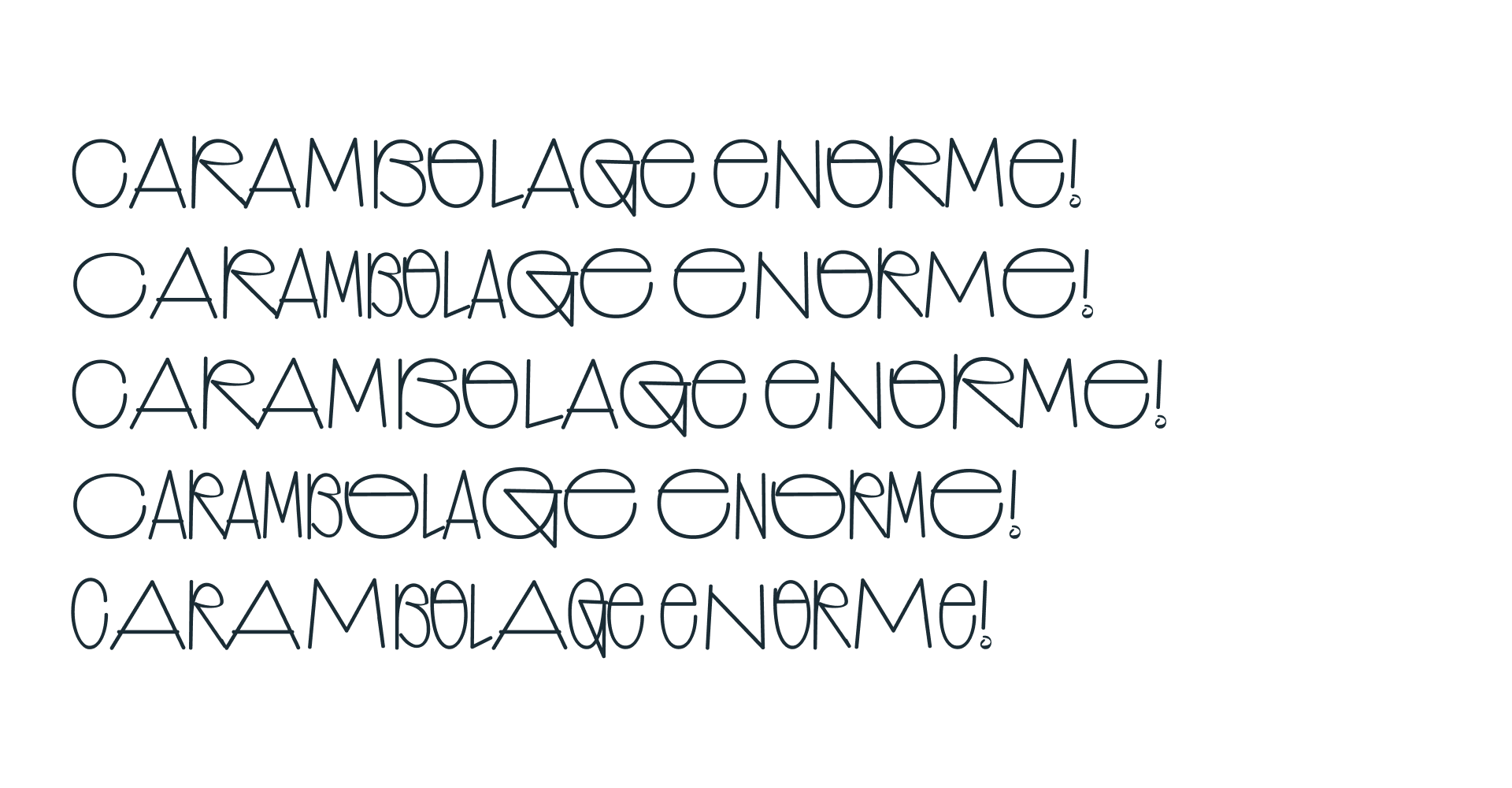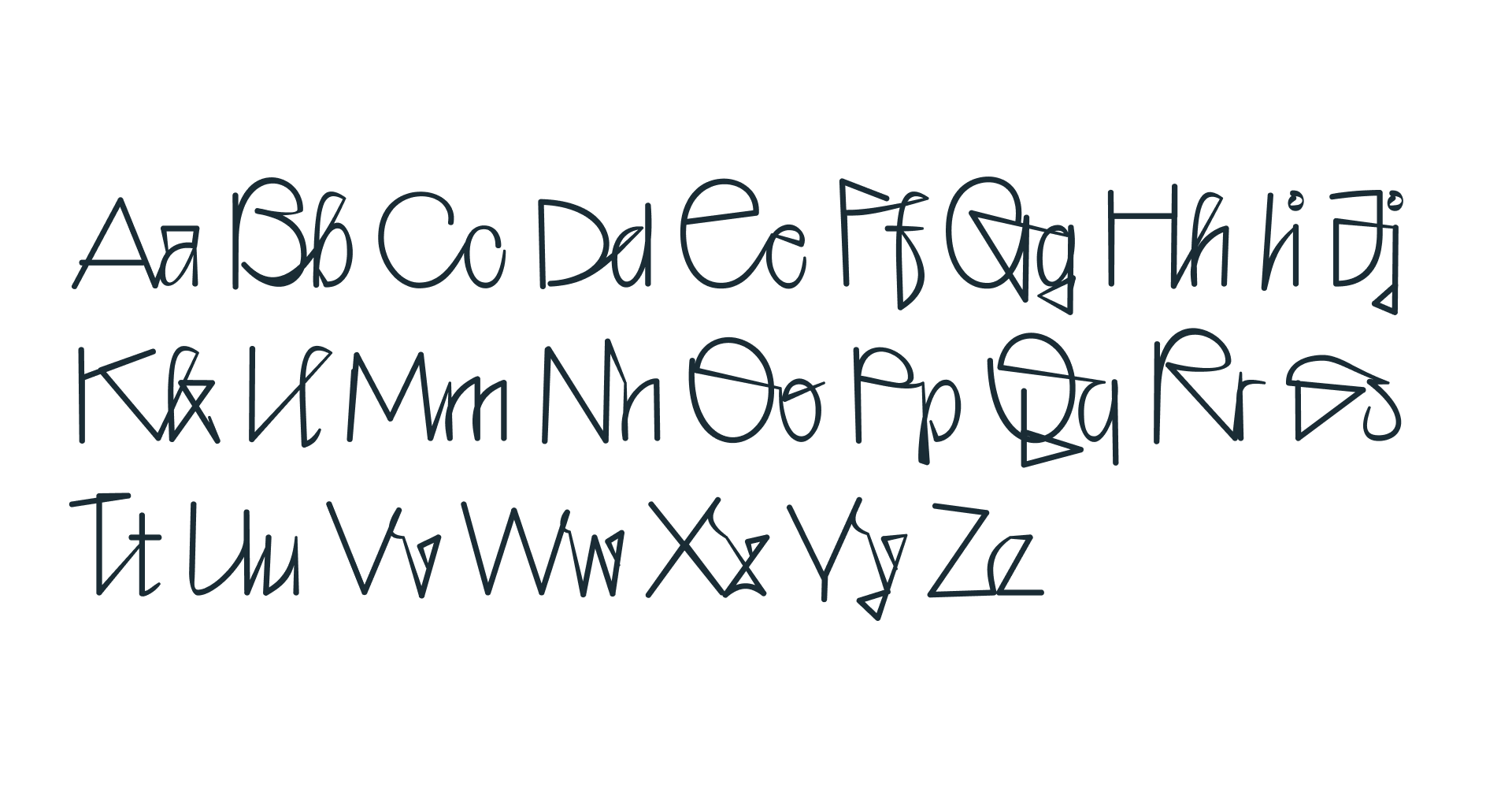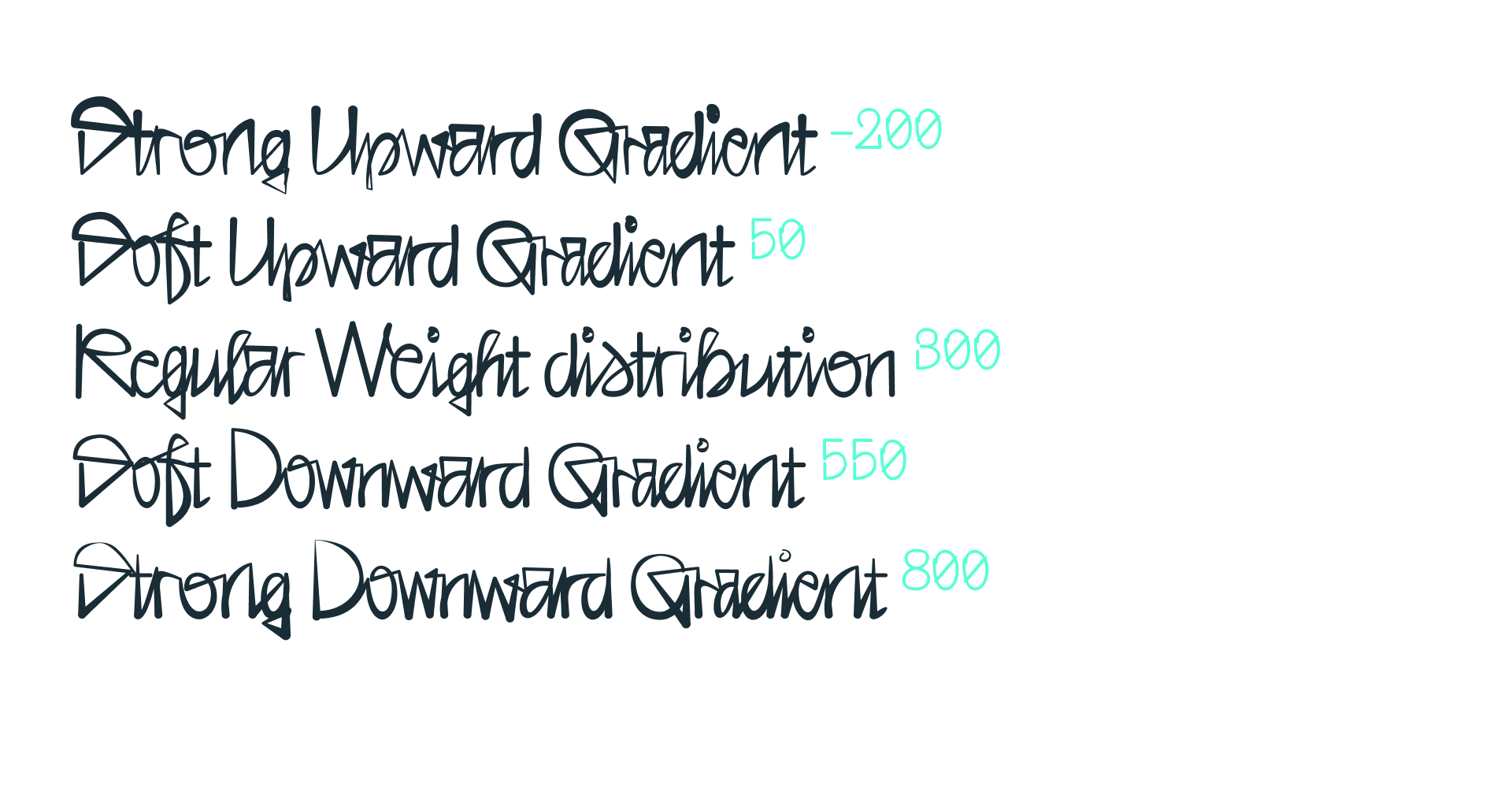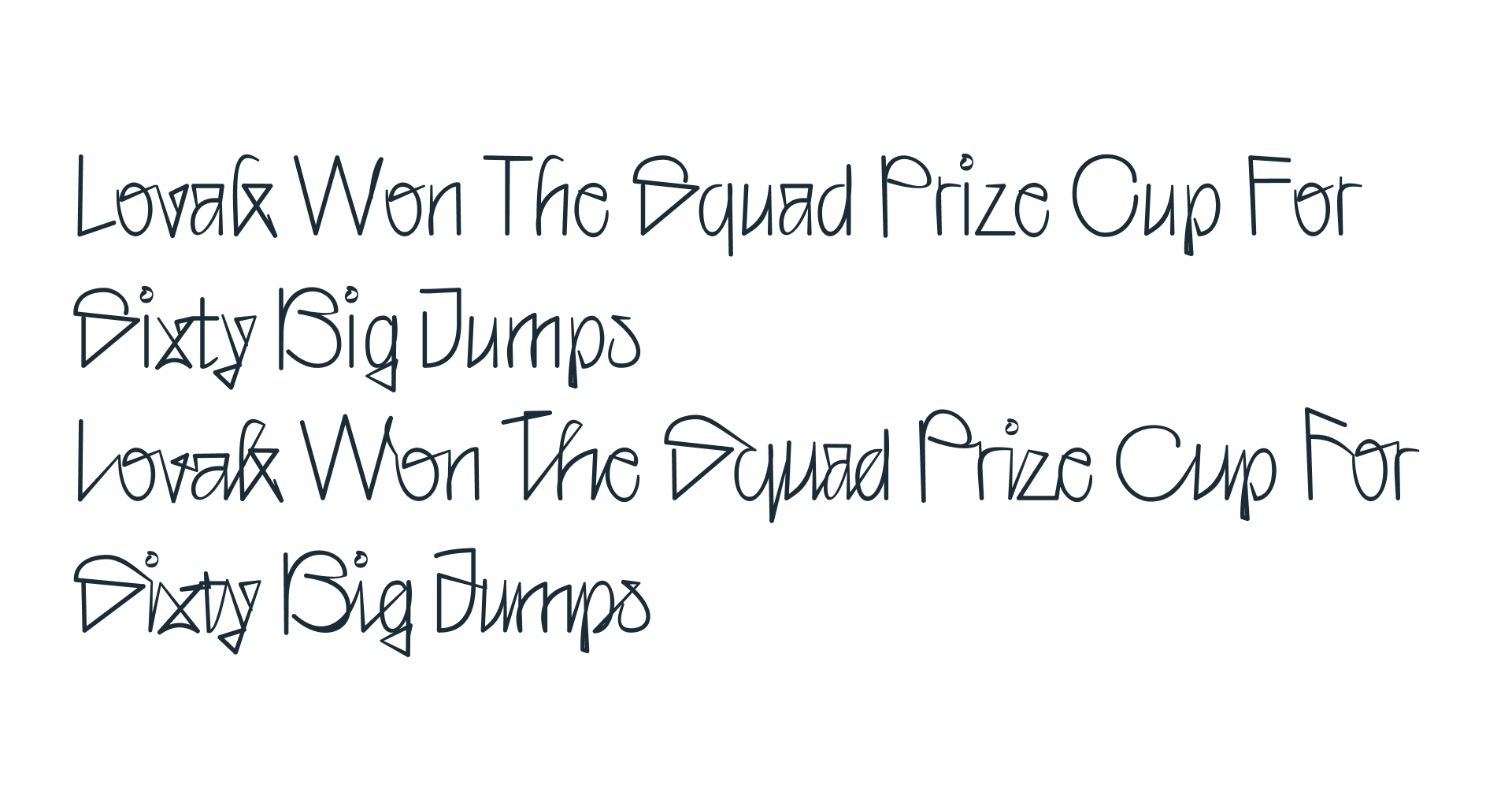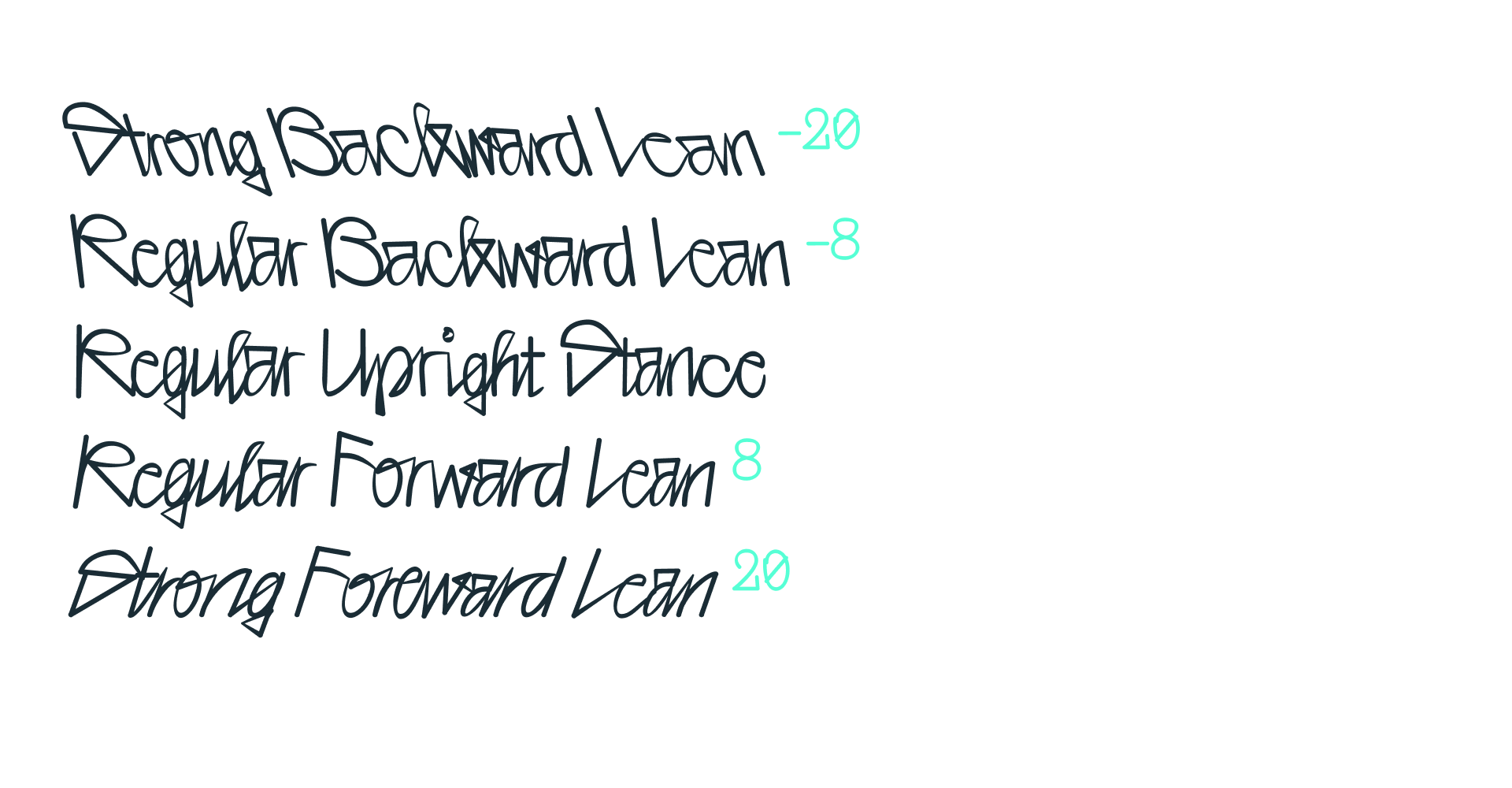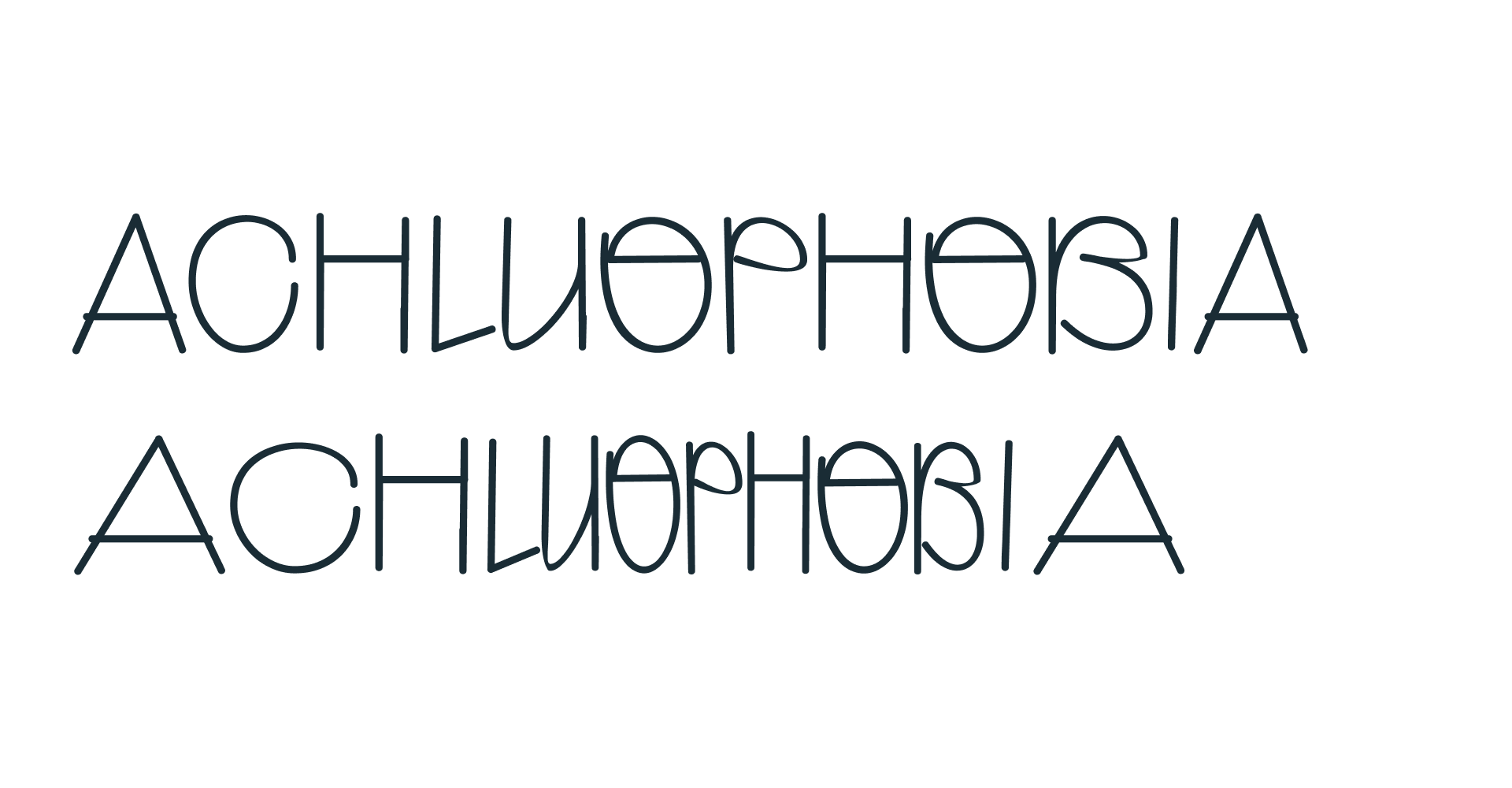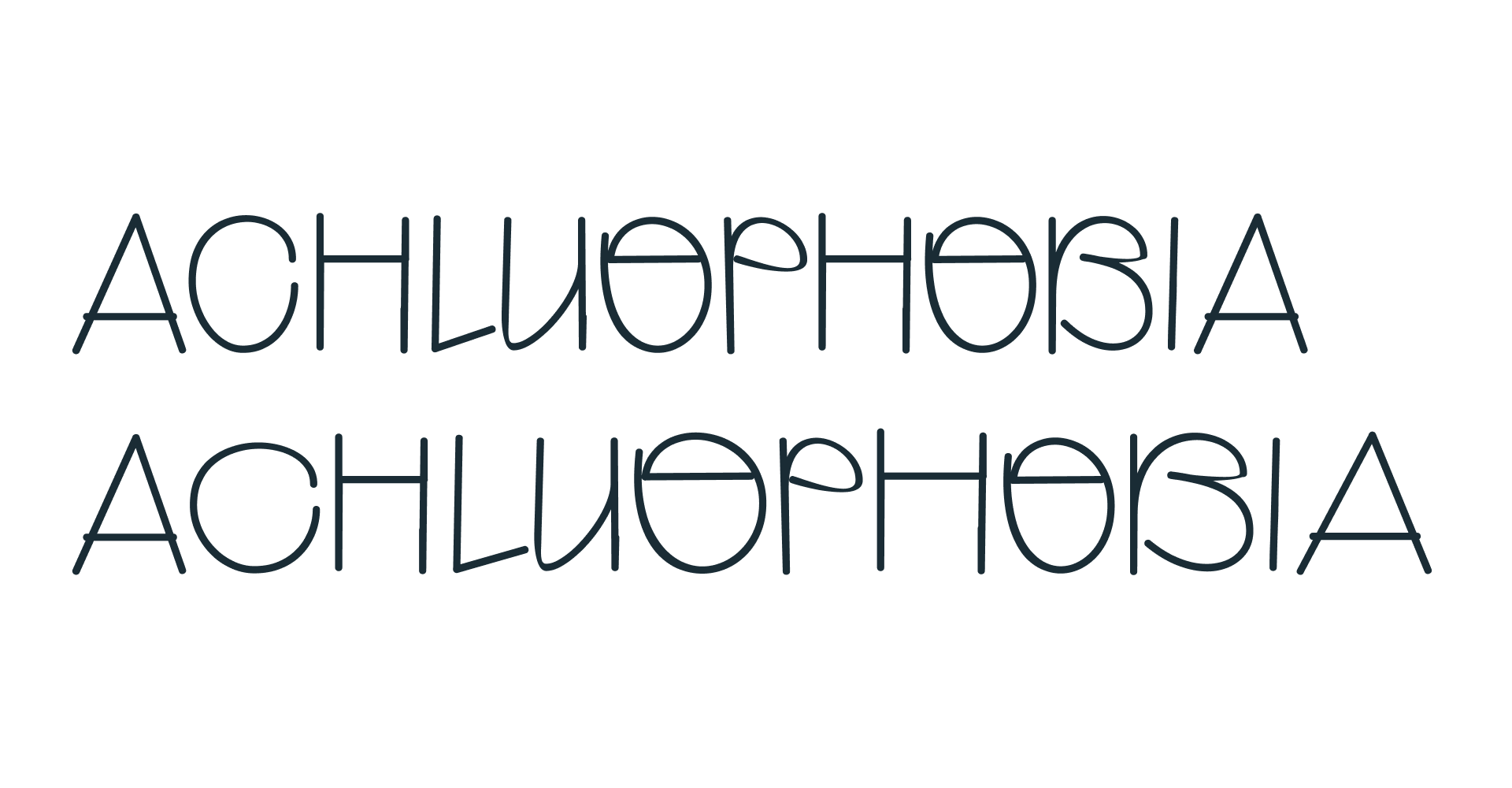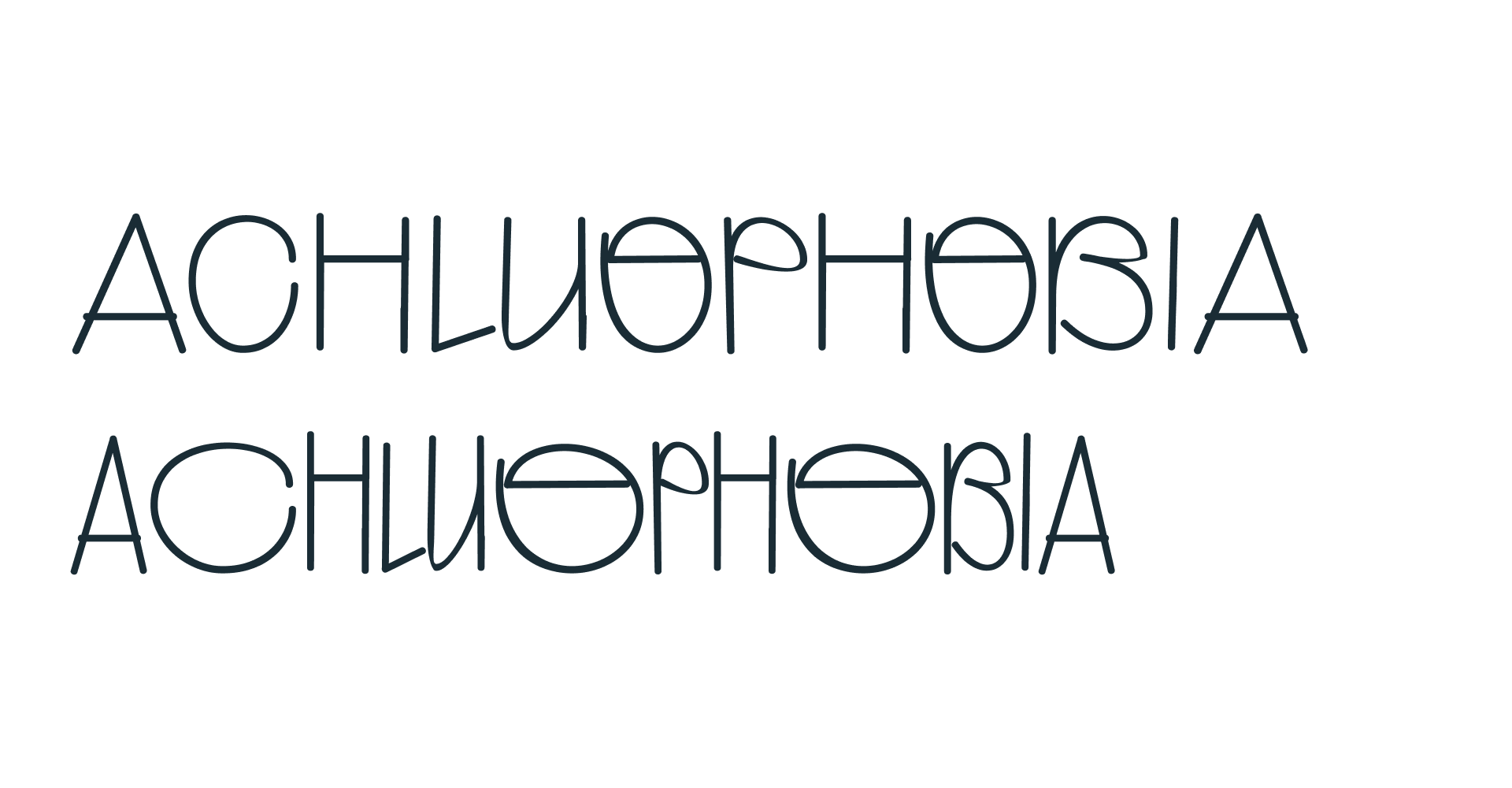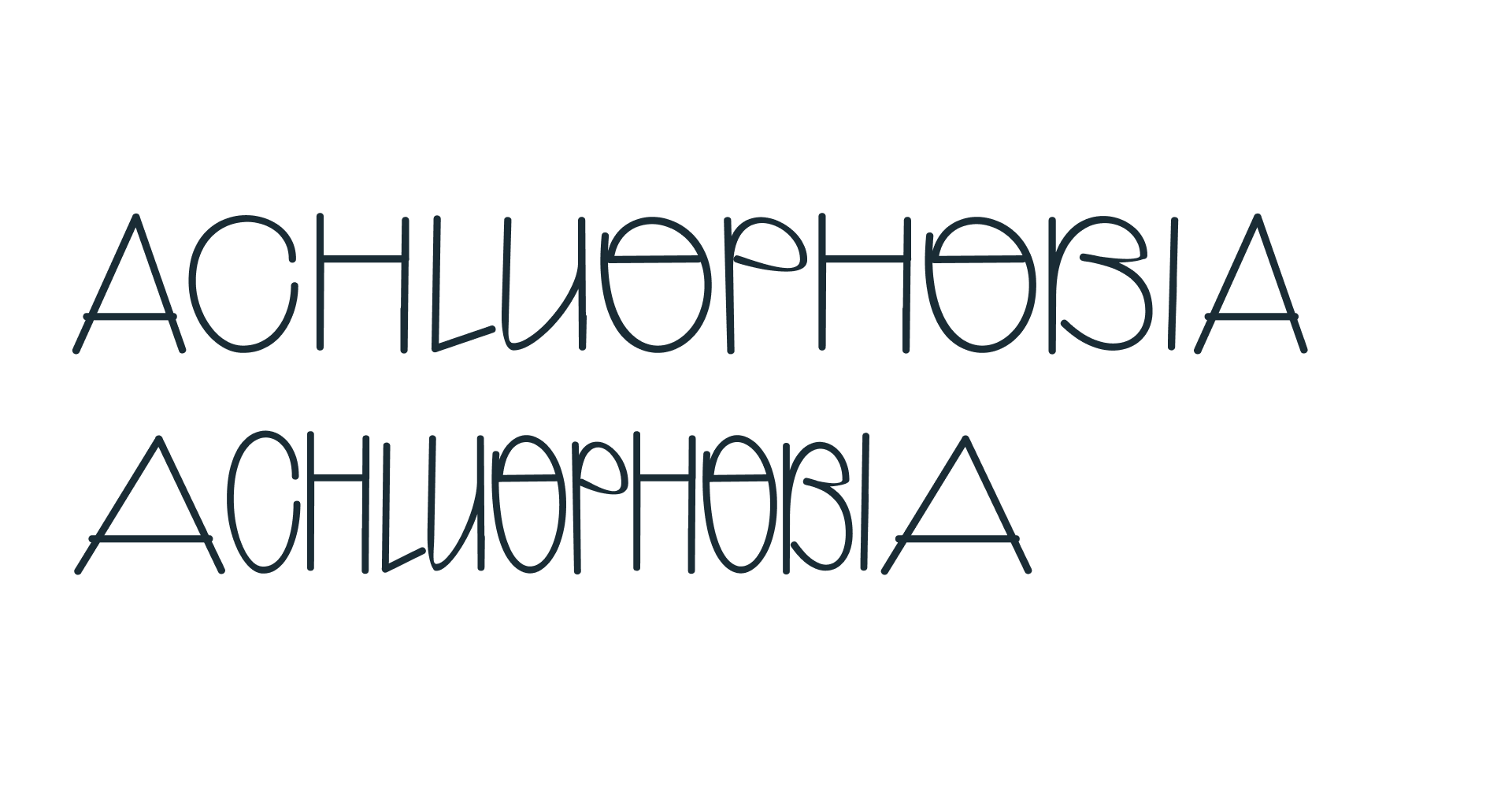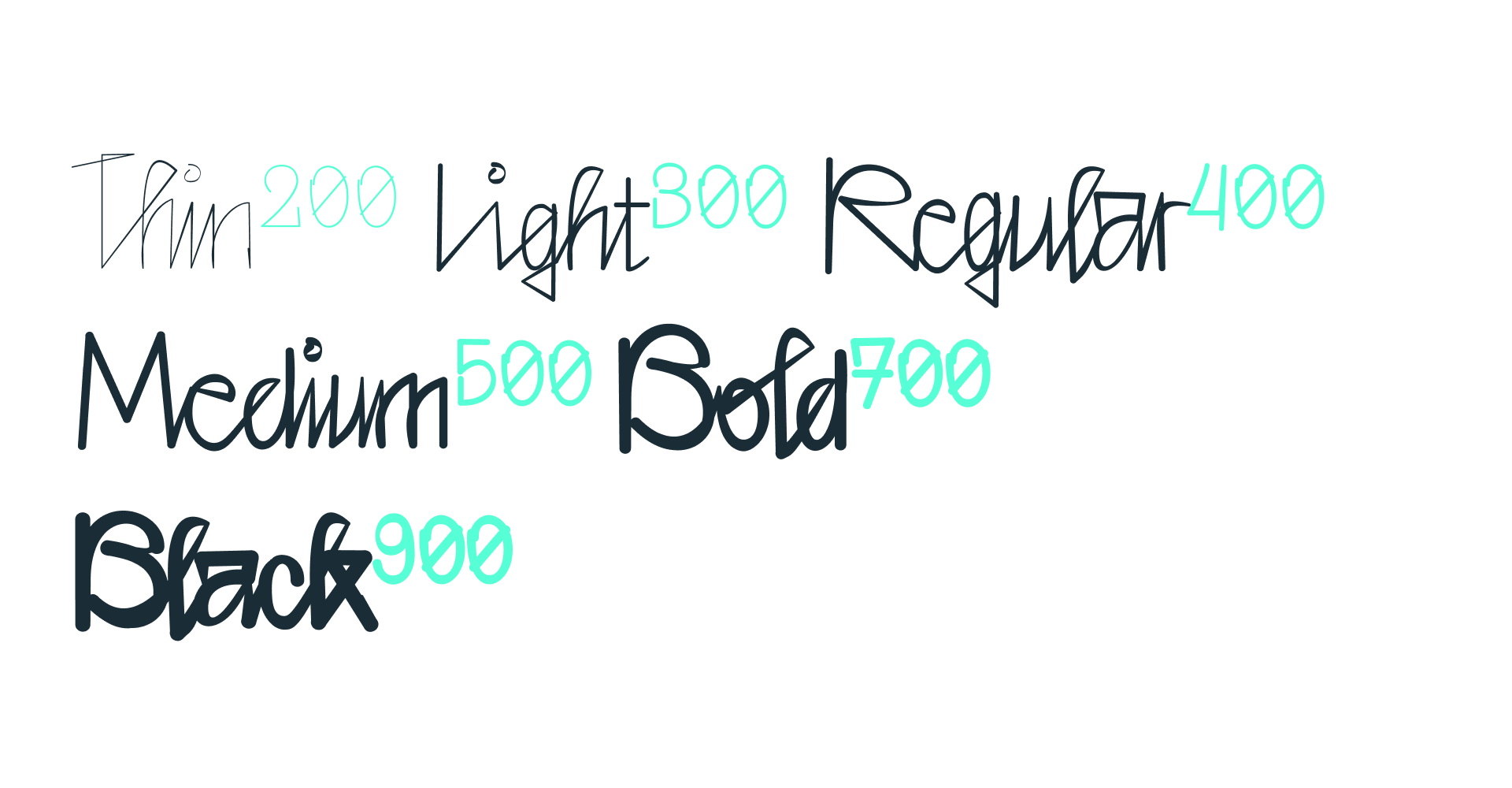
The Upright styles span a wide range of weights, from Thin to Black. From writting with a fineliner, to a normal pen, to a fat, bleeding marker. To a spray can.
The Gradient axis allows you to shift the weight of the letters up or down. The default value is at 300, which is the middle of the letter, taking into account ascenders and descenders, and shifts between -200 and 800.
The slant axis goes from -20 to 20, which stands for the degree of slanting. this will allow you to further customise the handwritten feel of your designs. Each slant direction was drawn with its own random values, meaning that letters shapes will also alter along this axis.
By using the LIGA Opentype feature, which should be switched on by default in most environments, the Lowwercase letters will always attach to eachtother, and the uppercase will attach to the lowercase.
The uppercase letters have been built in such a way that they can be displayed in 5 different ways: Default, Accordeon (narrowing towards the center of each word), pseudorandom, large rounded letters and large diagonal letters. Keep in mind that having multiple stylisc sets switched on will create unexpected results!
Please note that the caps will not connect to the lowercase letters if one of the stylistic sets is used.
Activate the CASE feature to make sure your period, comma or underscore line up nicely with the base of the capital letters.
Activate the SS01 feature to swap the a for an alternate shape in both Upright and Italics.